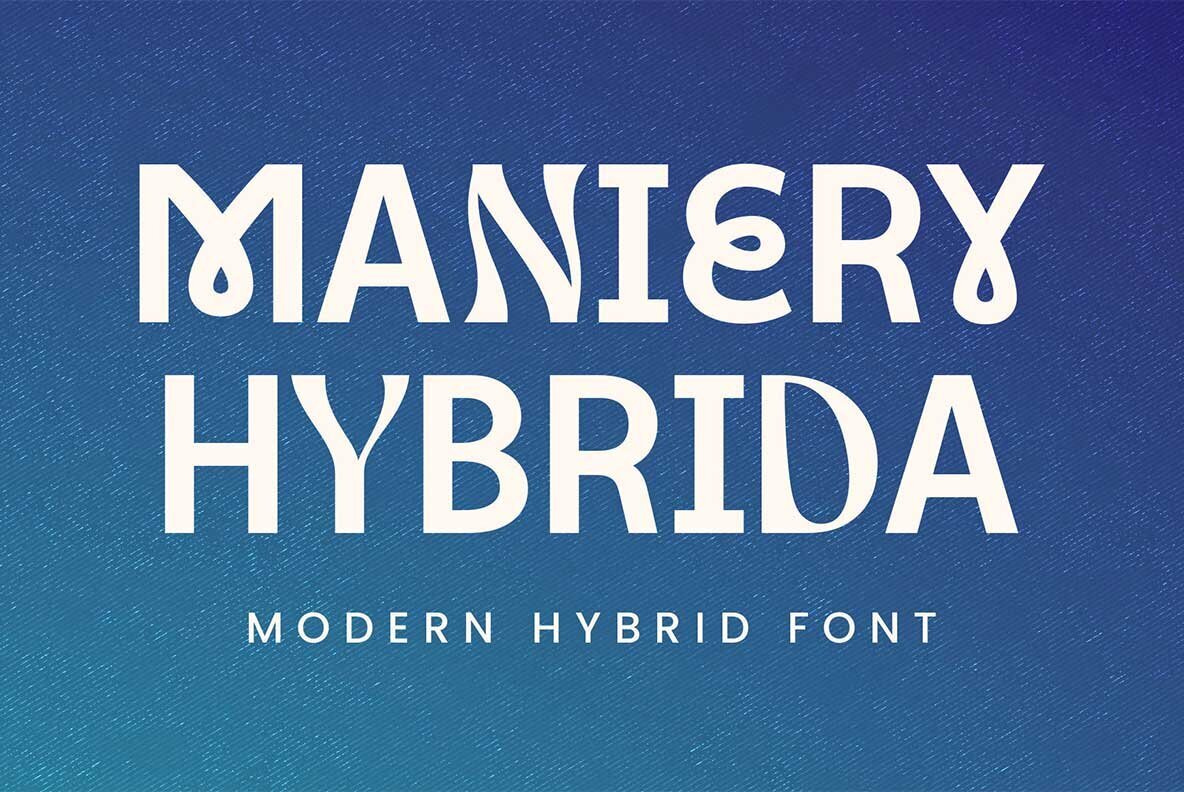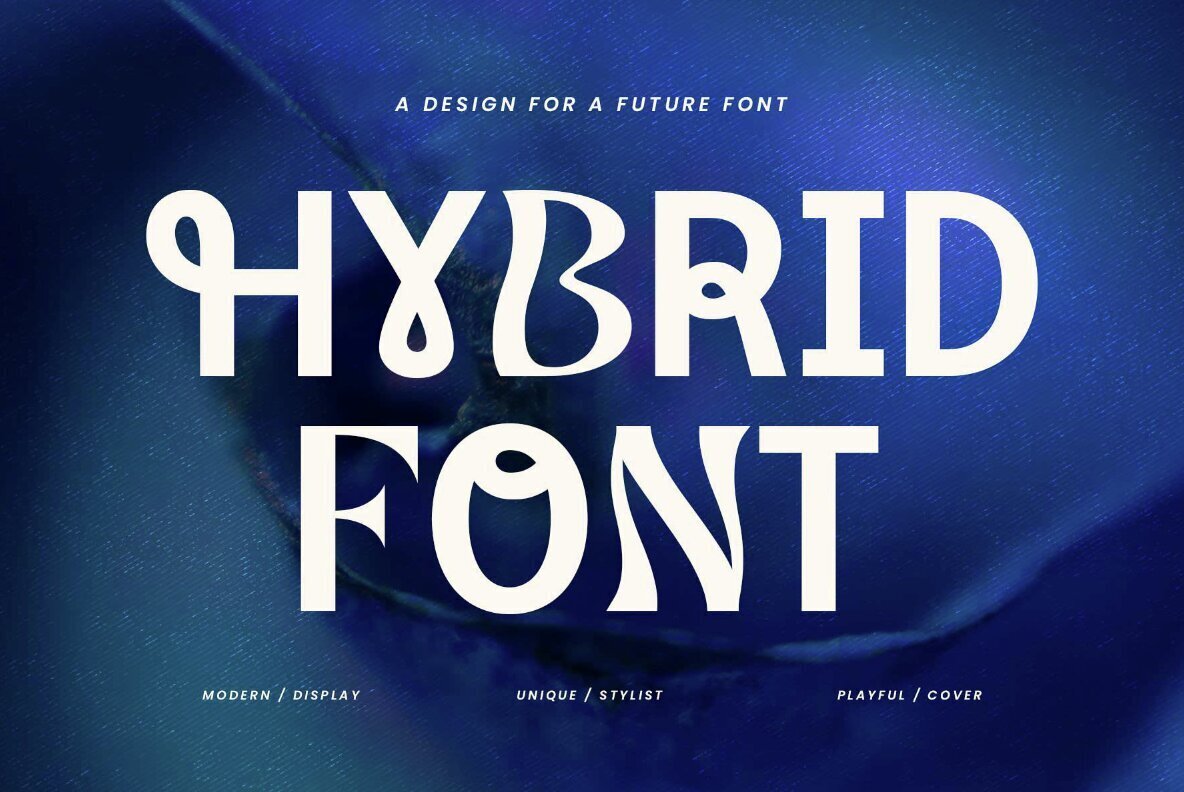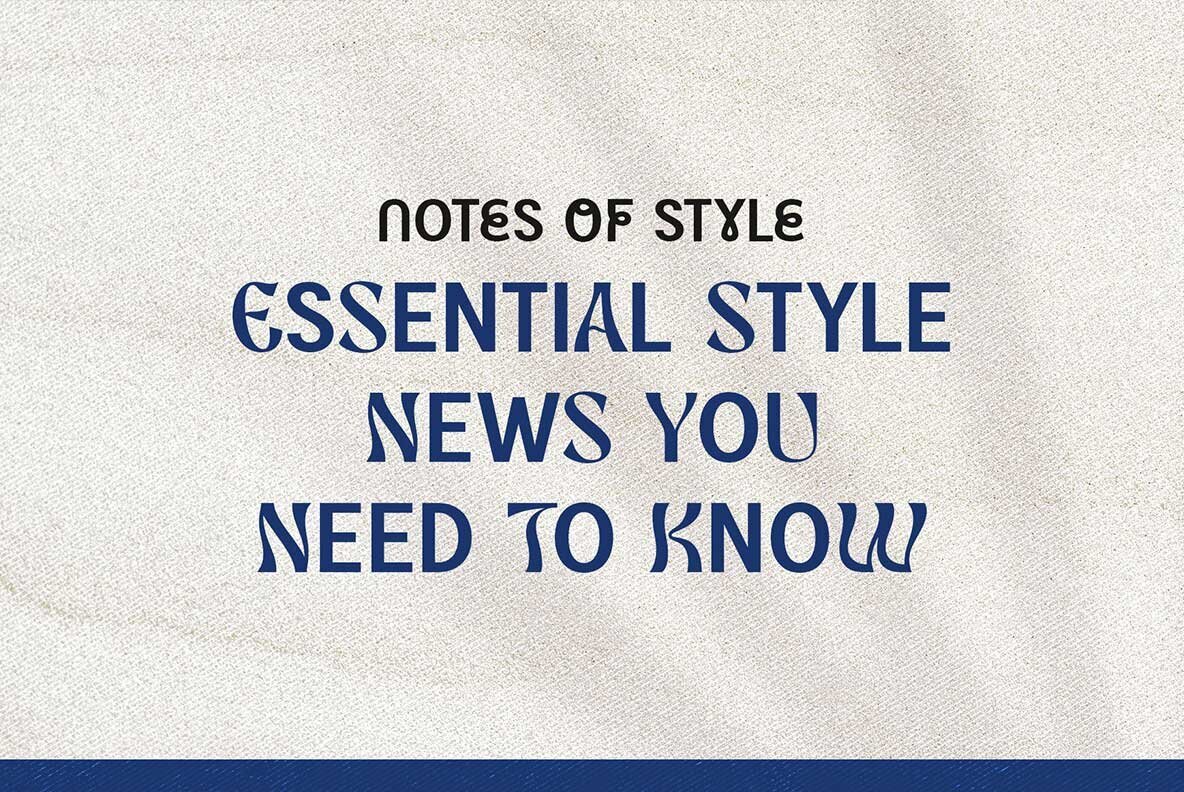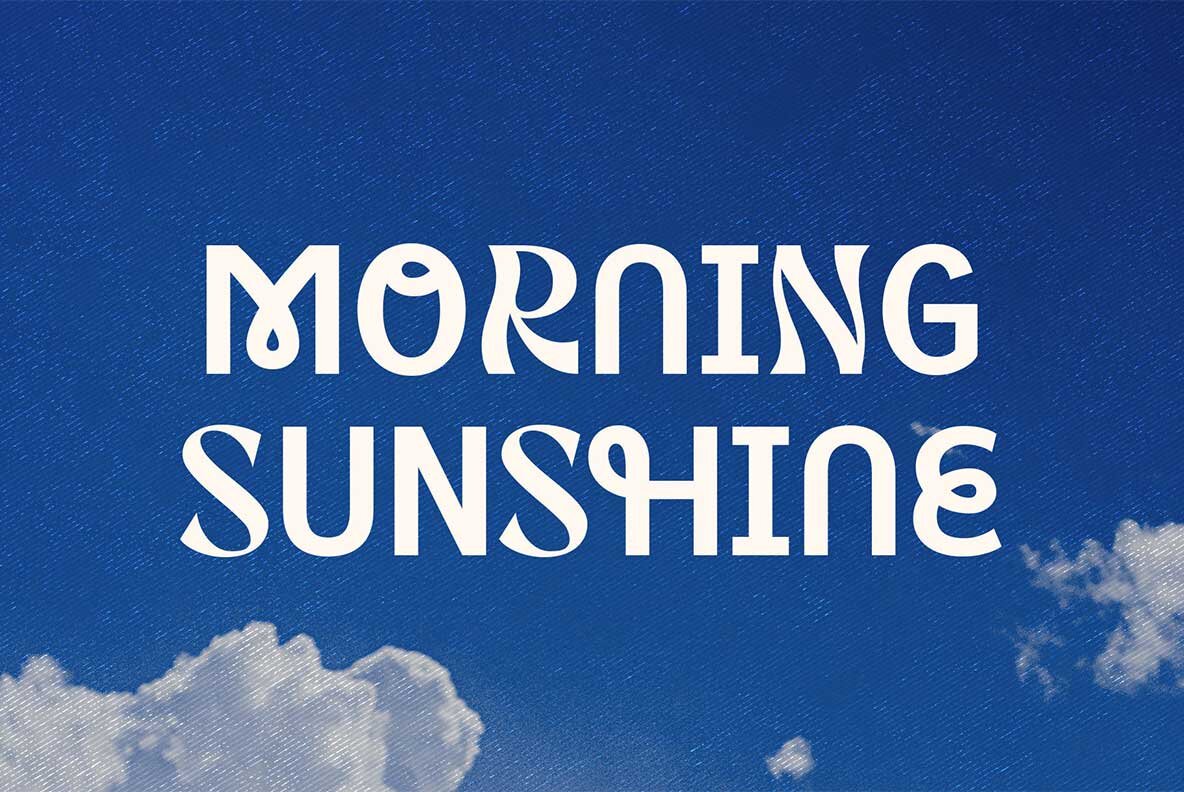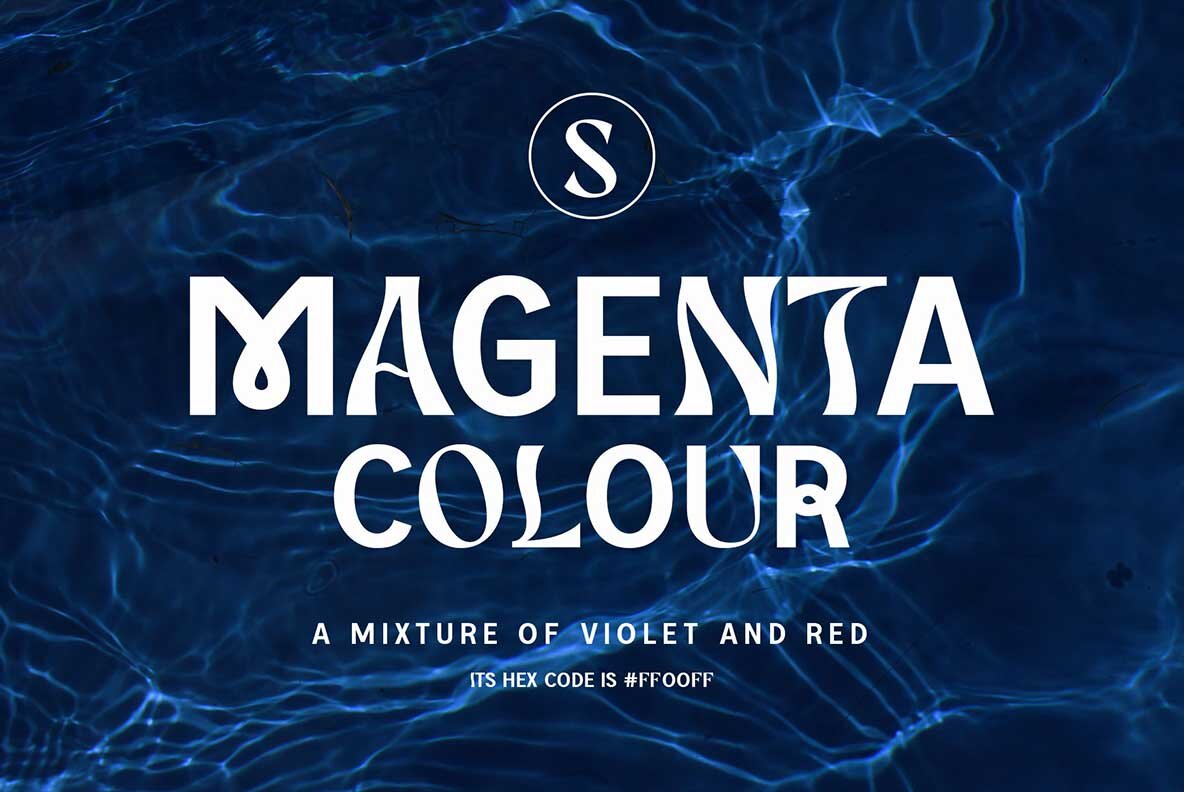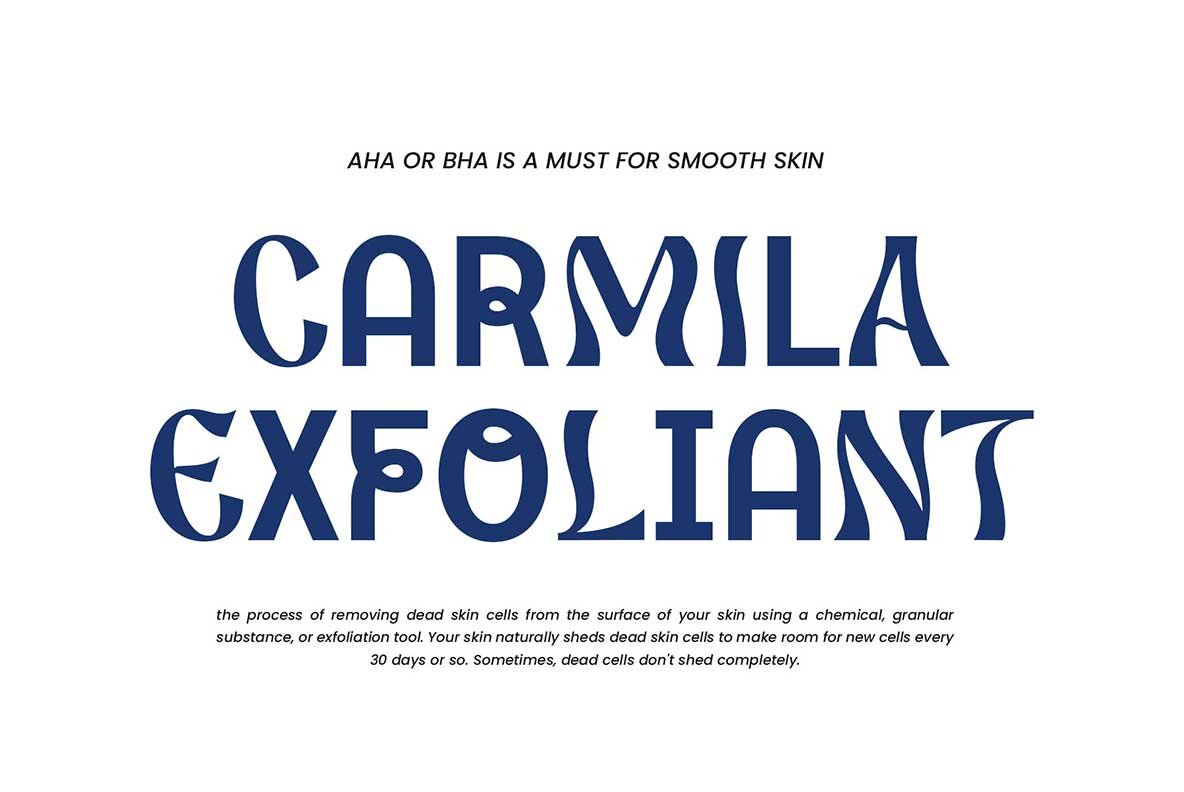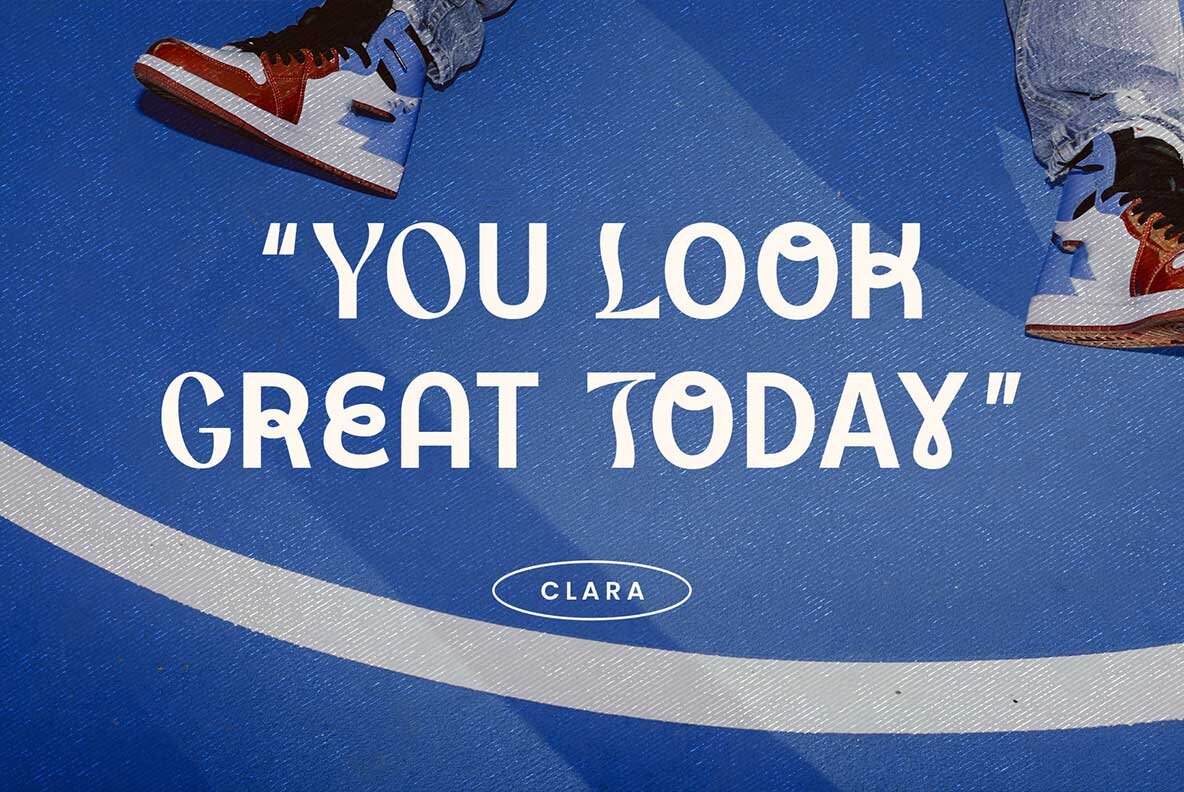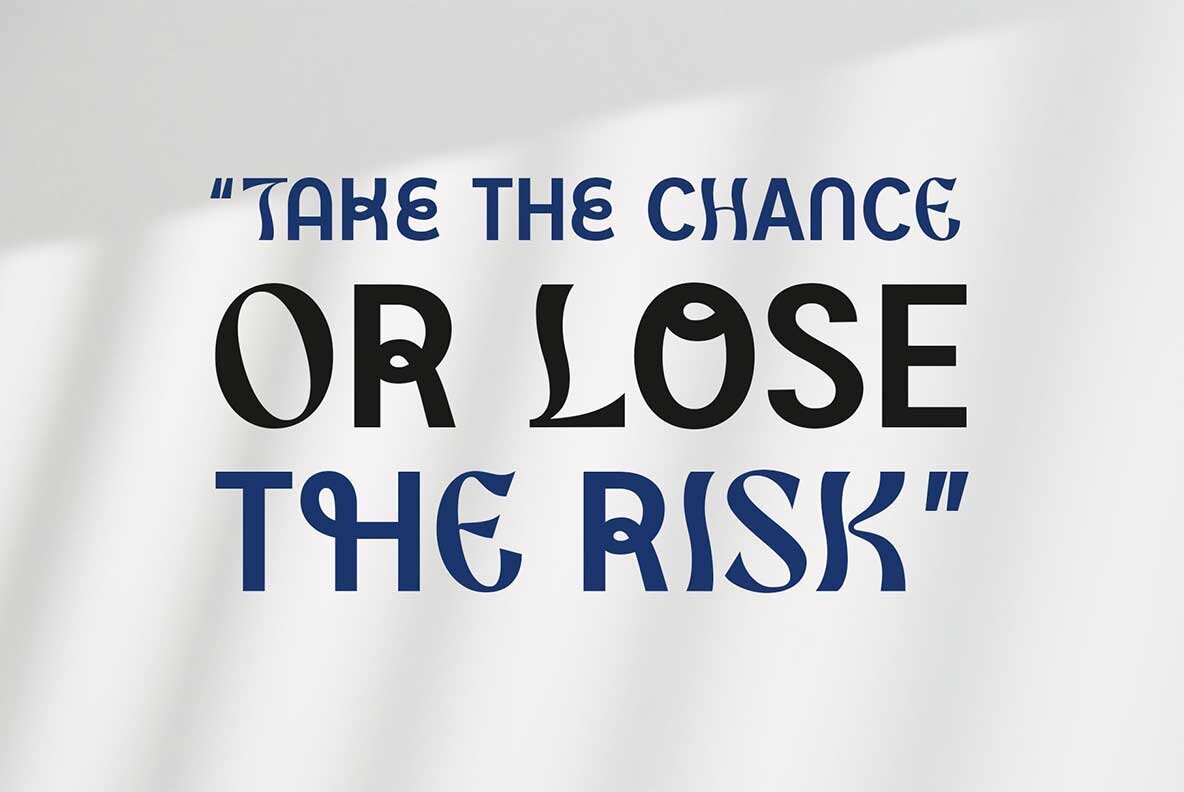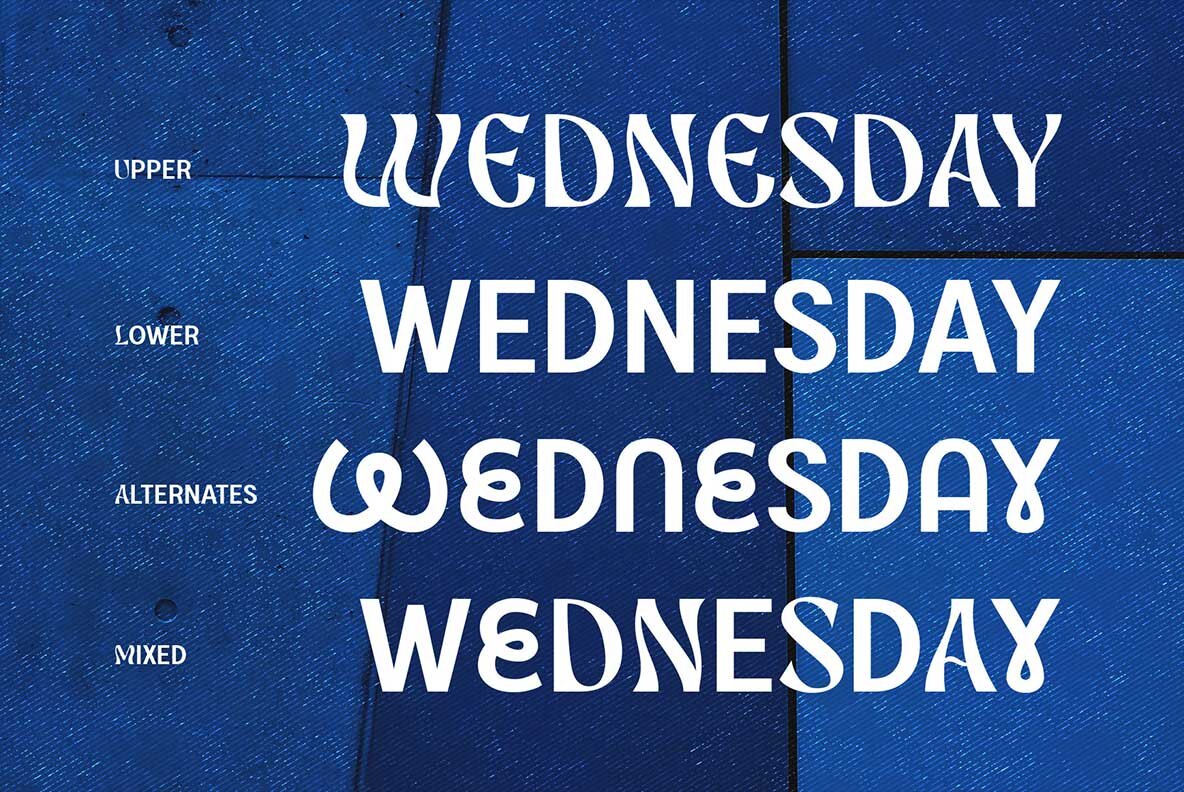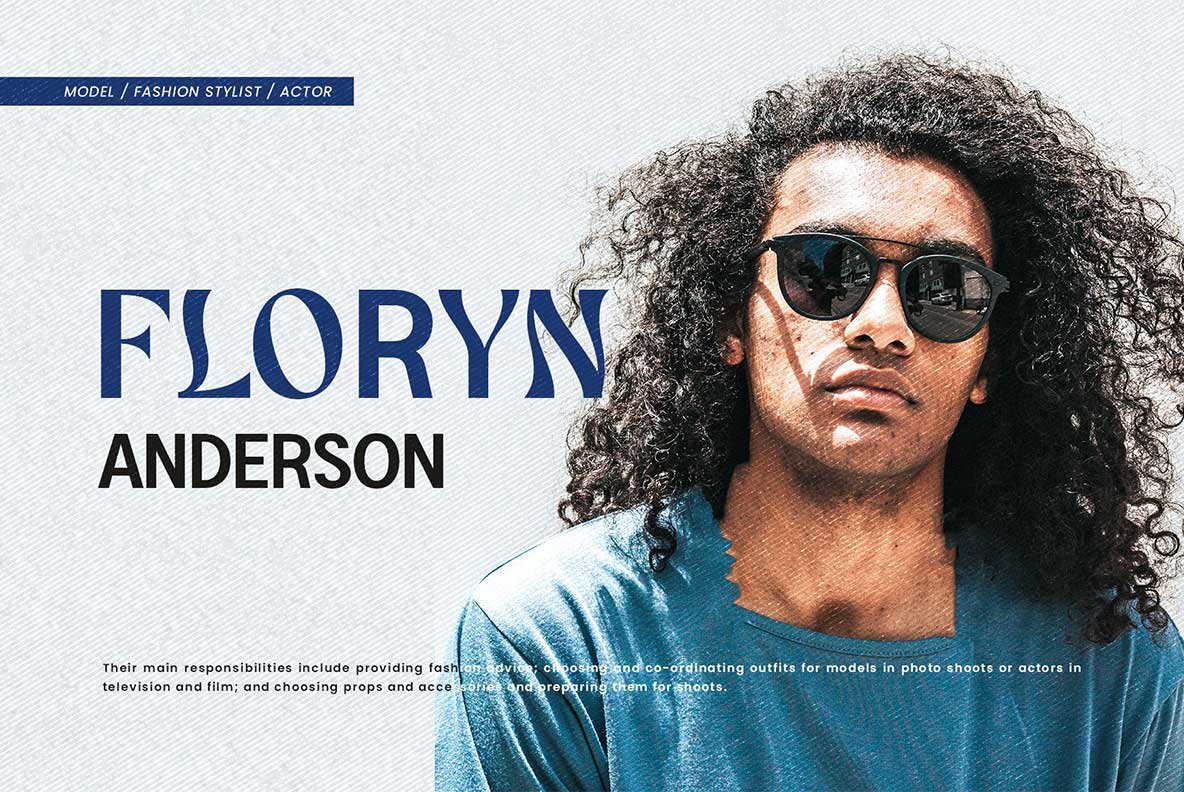
Maniery Hybrida Font
Maniery Hybrida Regular
Maniery Hybrida stands apart with its inventive fusion of loopy, sans serif, and unconventional serif elements. This font brings a lively, eye-catching twist to display and headline designs. Its eclectic character offers a creative edge for projects that demand a striking and memorable visual presence. Whether for posters, branding, decals, mobile apps, or flyers, Maniery Hybrida supplies a refined touch of originality. The font’s adaptability makes it well-suited for designers seeking something distinct for their work, placing emphasis on both visual impact and aesthetic clarity.Maniery Hybrida: A Distinctive Hybrid Typeface for Bold Statements